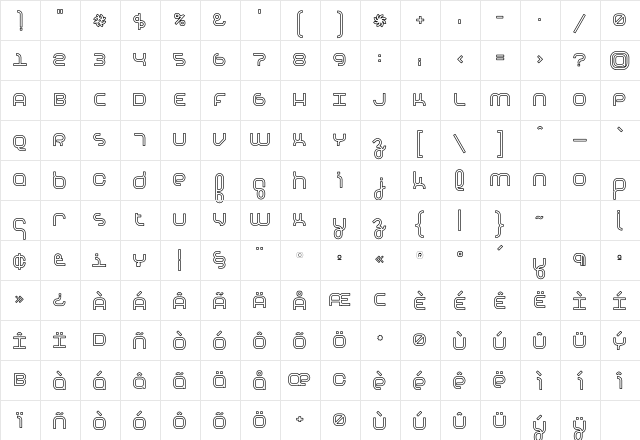
Complete Basis HeavyOutline glyph index. Displaying only characters natively supported by Basis HeavyOutline font.
Basis is built around its visual character rather than neutral utility - its distinctive forms are designed to make an impression at display sizes.
Font Pairing: Pair with a clean neutral sans-serif for body copy to let Basis's character lead without overwhelming the composition.
Pro Tip: Use Basis exclusively at display sizes - it was designed to be seen, not read at length. Let a neutral companion handle body copy.